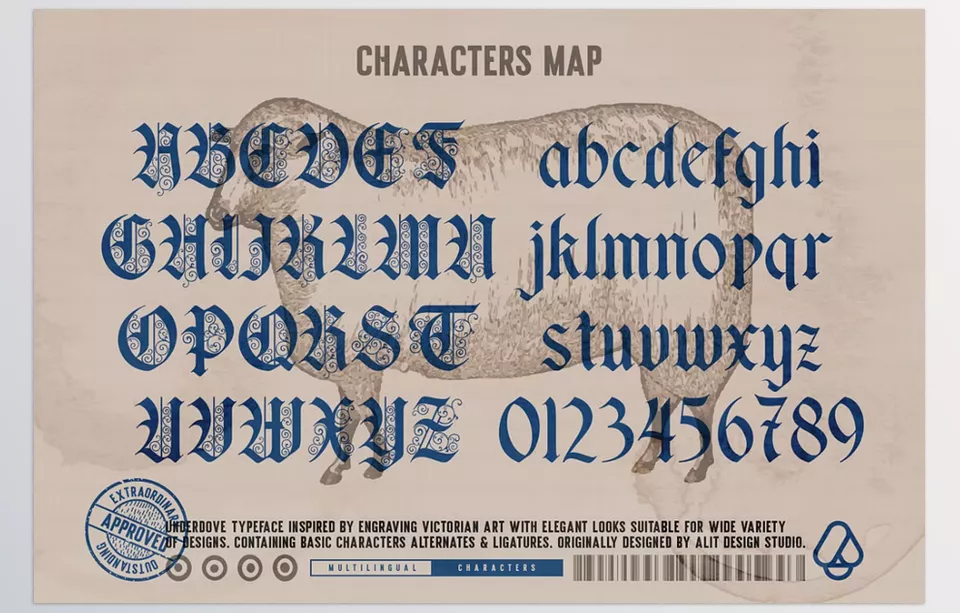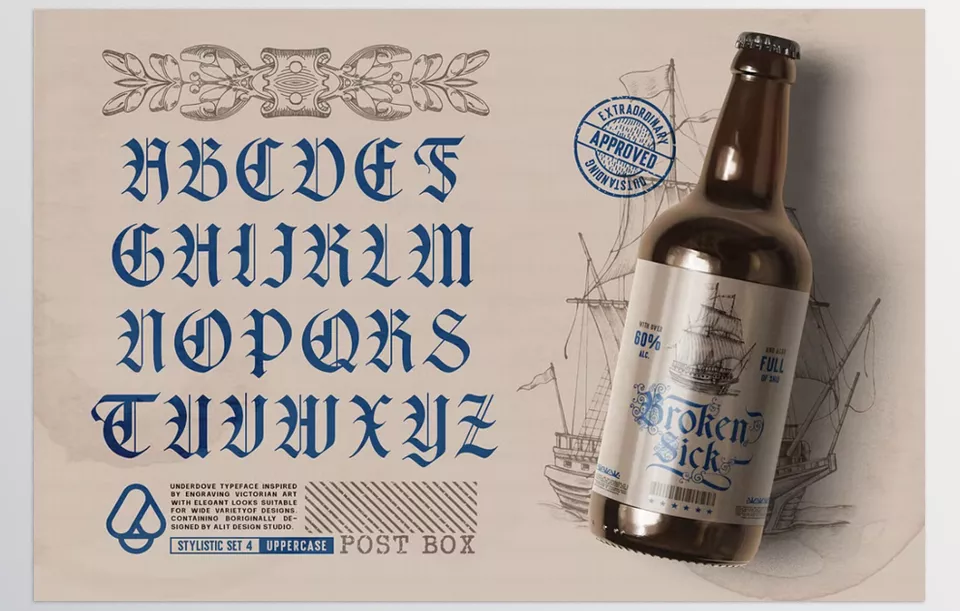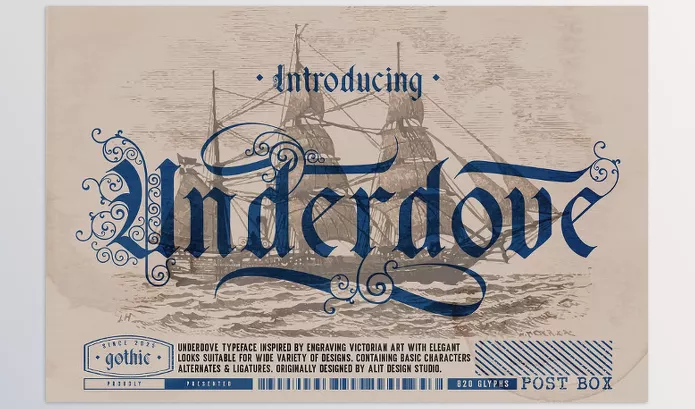
Creative Market – Underdove Typeface is a stunning blackletter font that pays homage to the Victorian era’s intricate engravings and timeless calligraphy.
alit design – Underdove Typeface Features
- Inspirational design reflects 19th-century woodcuts and maritime artisan paintings that are bound to evoke nobility as well as mystery, putting them in awe.
- The otherwordly sharp angled flourishes and swashes of soft curls, giving a ceremonial look, make this typeface stand out.
- Textured finish is ideal for steampunk design or vintage-looking themes; it gives the illusion of hand engraving.
- With 820 glyphs, this font offers a boundless choice and wiggle room in style.
- Depending on the composition that needs to be built, multiple flourished extension copies and versions are provided.
- For a smooth flow of text, pairs and trios of letters are crafted to seamlessly fit together, aiding all creative endeavors.
Image 1: Showcase intricate details coupled with bold structures by Gothic elegance typeface with sharp contrasts.
Image 2: Typefaces inspired by historical beauty and modern creativity will sharpen the appearance of your designs.